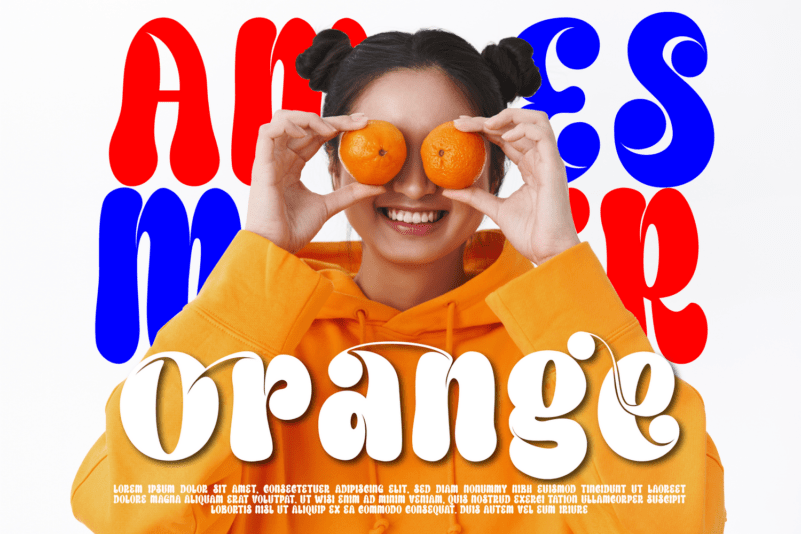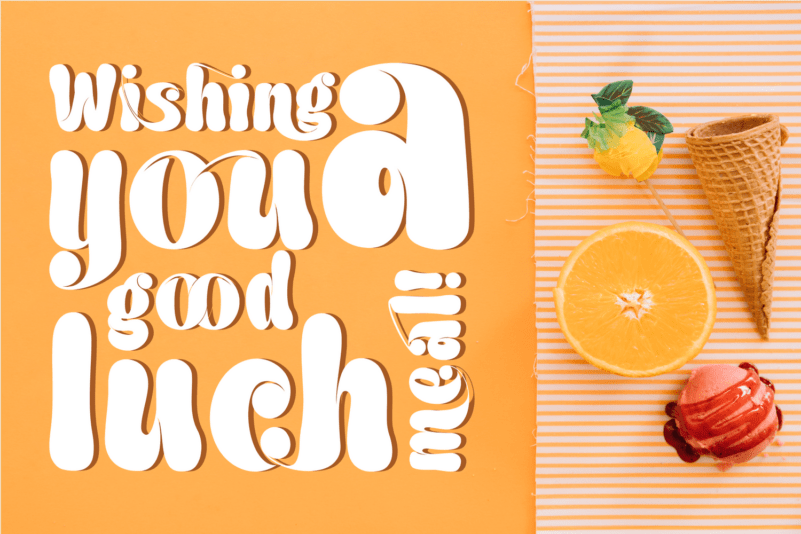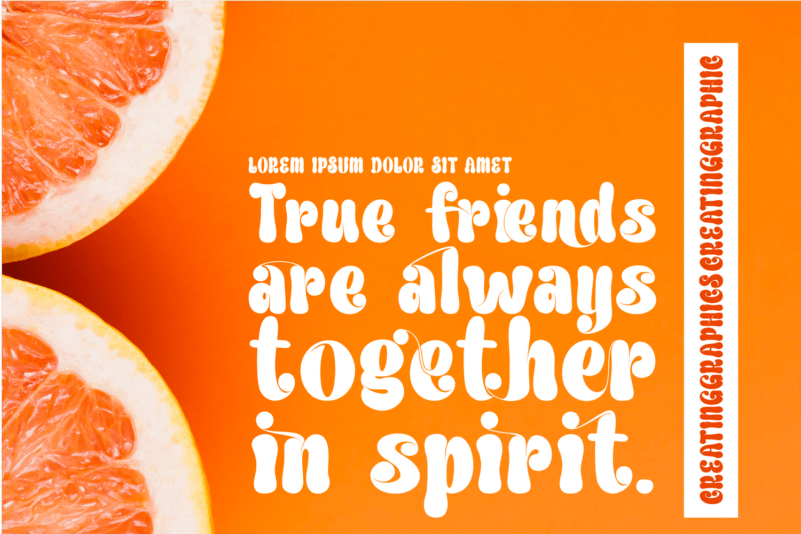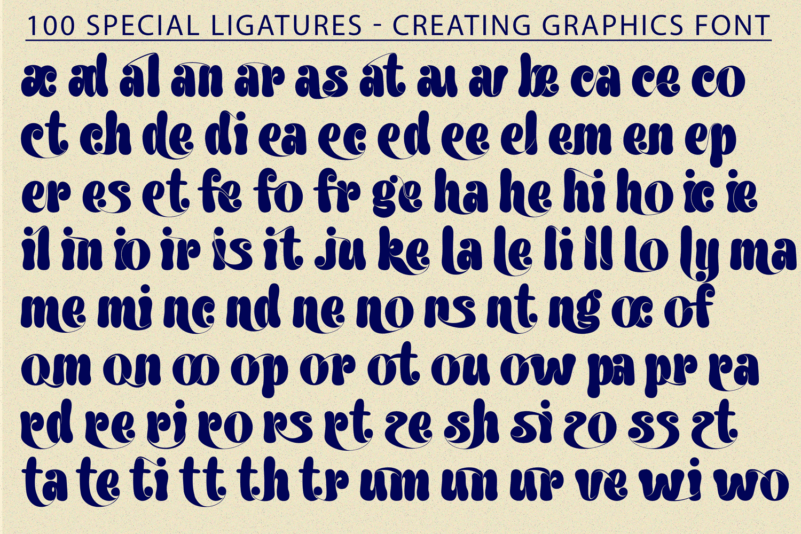
Creating Graphics Font is a cute, groovy, and display font, it’s a psychedelic and funky blend with a bubbly touch, it’s a hand-drawn font with big groovy letters! This font will make any creative idea stand out and stunning! Suitable for designing T-shirts, tote bags, hats, stickers, wedding invitations, logos, cards, quotes, and more!
Creating Graphics was built with OpenType features and includes 100 ligatures, alternate, numbers, punctuation, and it also supports other languages.
ac ad al an ar as at au av be ca ce ch co ct de di ea ec ed ee el em en ep er es et fe fo fr ge ha he hi ho ie ic il in io ir is it ju ke la le li ll lo ly ma me mi nc nd ne ng no nt ns oc of om on oo op or ot ou ow pa pr ra rd re ri ro rs rt se sh si so ss st ta te th ti to tr tt um un ur ve wi wo